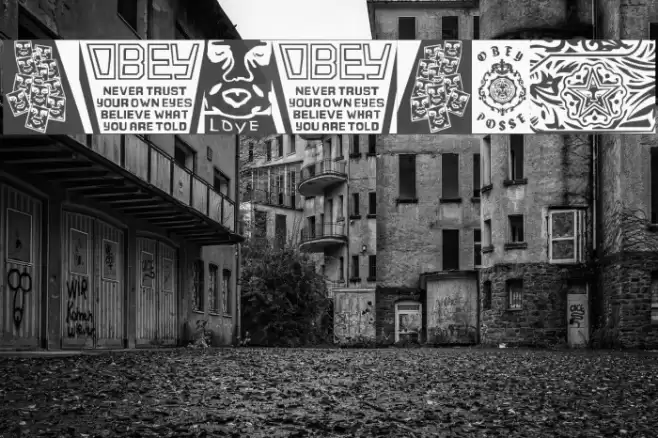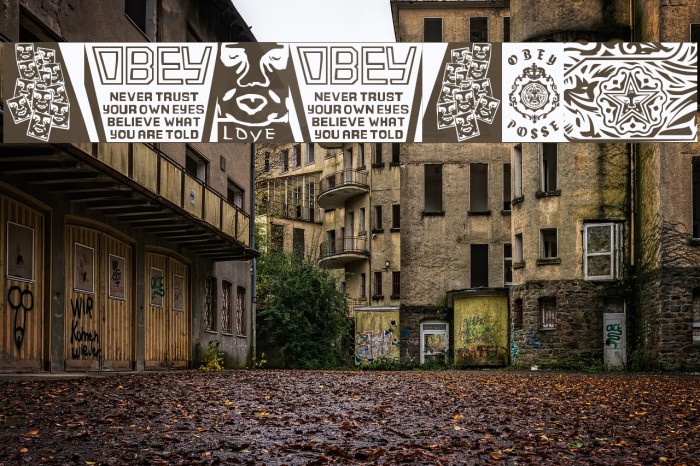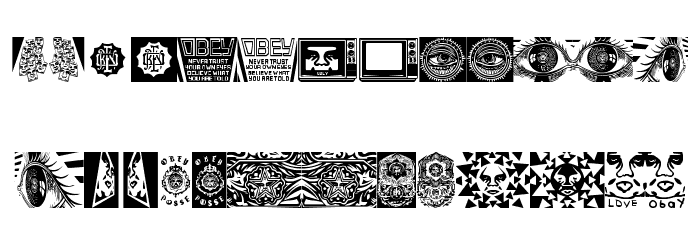
ObeyPears Font
ObeyPears Description
Highly decorative and illustrative set of glyphs featuring bold, graphic motifs, including eyes, faces, geometric shapes, and propaganda-inspired iconography. The style is reminiscent of street art and visual activism, with heavy use of black and white contrast and intricate detailing.
Decorative, graphic, and illustrative font with street art influences from Uncategorized fonts.
- Proposed Projects: Posters, album covers, streetwear branding, activist campaigns, zines, and art installations.
- Overall Style: Decorative, Urban, Graphic, Activist
- Use Case: Logos, Posters, Art projects, Display headlines